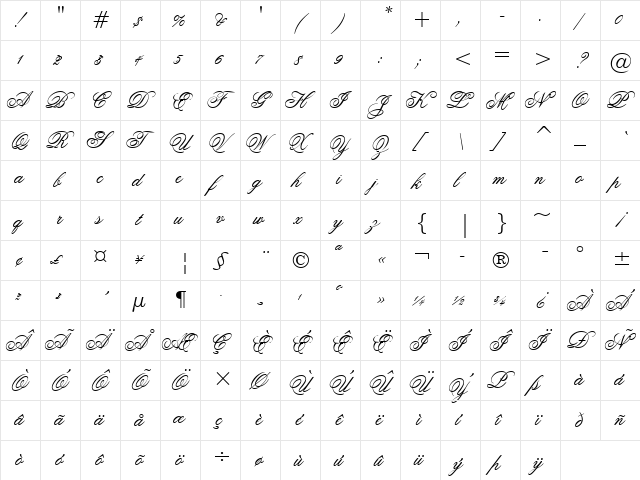
FlemishScript BT Regular Font Preview
FlemishScript BT Regular
Design Context for FlemishScript BT Typeface
FlemishScript BT flows with the natural rhythm of handwritten lettering, making it ideal for designs that call for warmth and personal expression.
Font Pairing: Combine FlemishScript BT with a simple geometric sans for maximum contrast — the tension between flowing curves and clean structure is a classic typographic pairing.
Pro Tip: Use FlemishScript BT for short runs of text — names, titles, or taglines. Extended body copy in script faces tires the eye quickly.